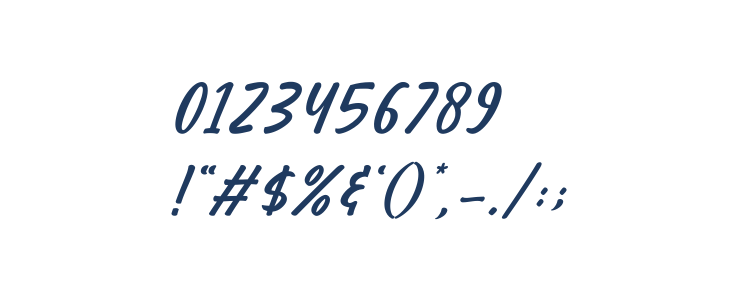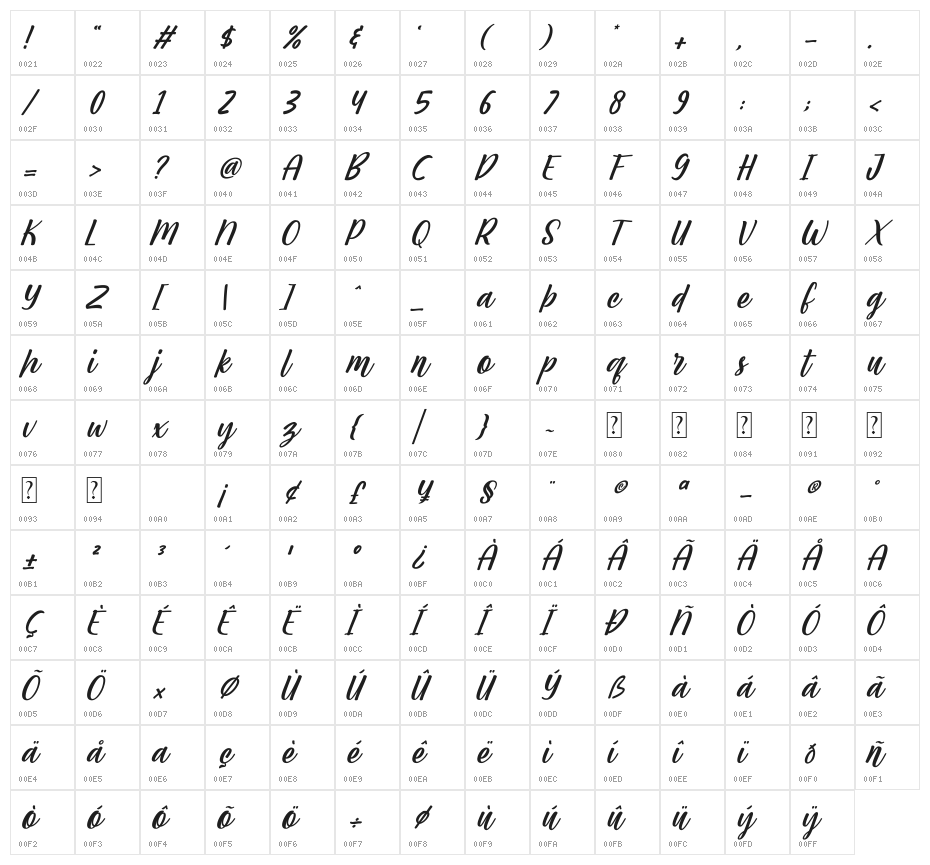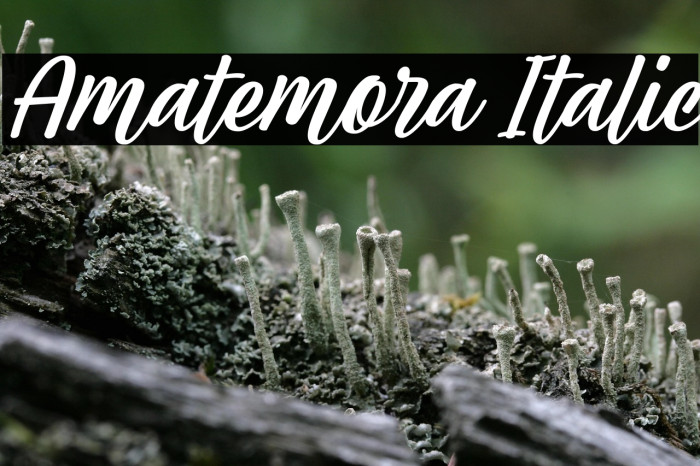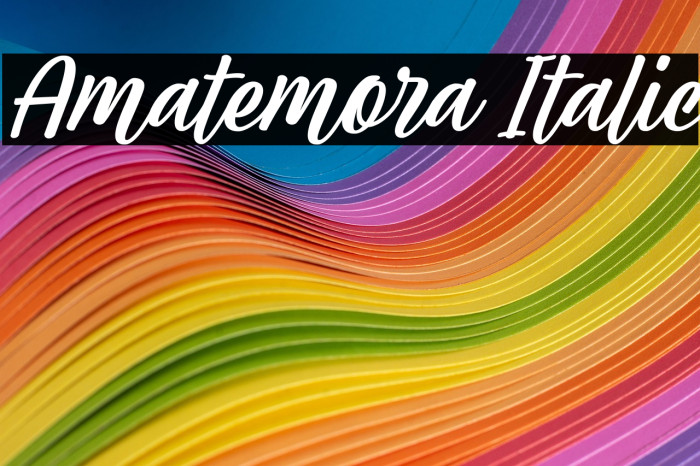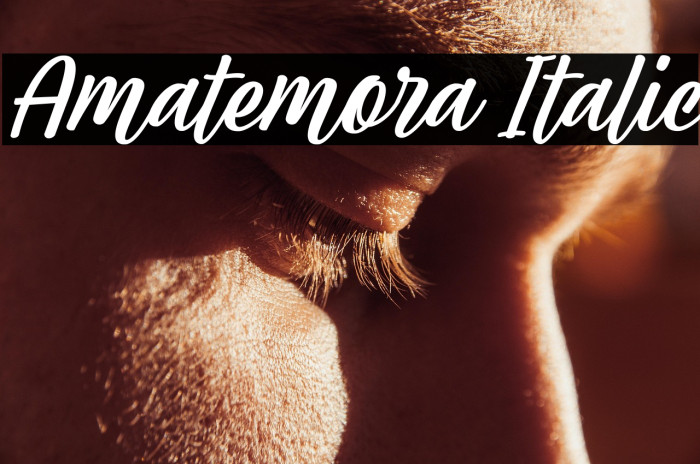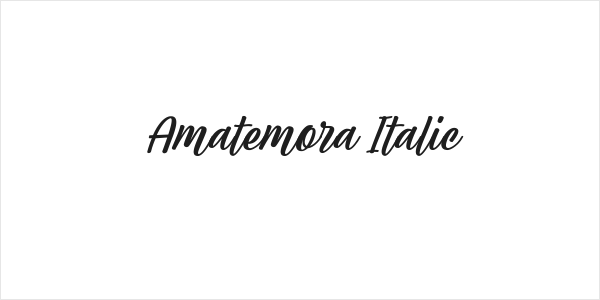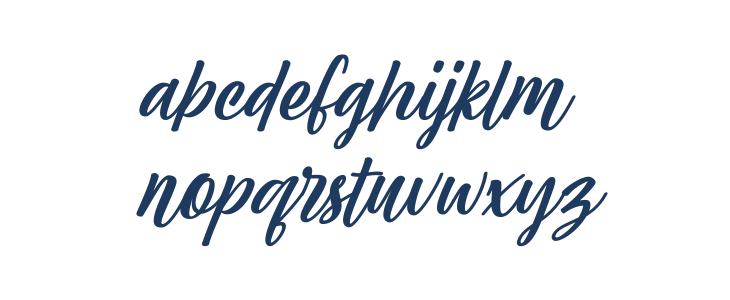
Amatemora Italic Font
Amatemora Italic Description
This font features a dynamic and fluid script style, characterized by its elegant and flowing letterforms. The uppercase and lowercase letters exhibit a consistent slant, enhancing the italic nature of the typeface. The strokes are smooth and connected, giving a sense of continuity and movement. The numbers and special characters maintain the same stylistic approach, ensuring uniformity across all glyphs. The overall appearance is both sophisticated and approachable, making it suitable for a variety of creative applications.